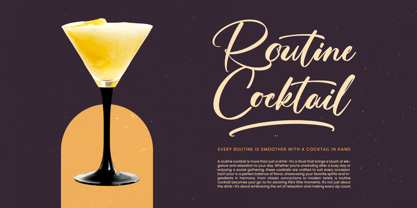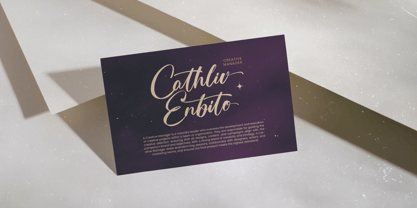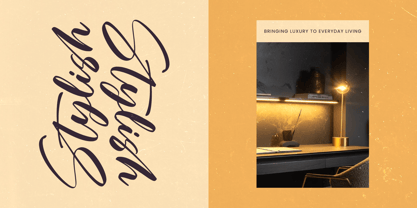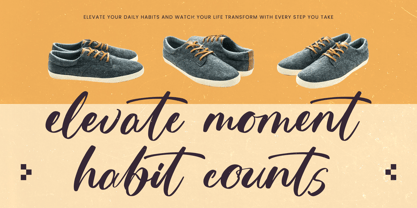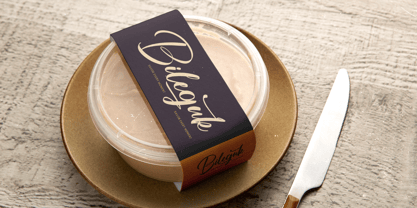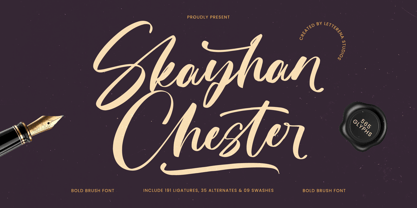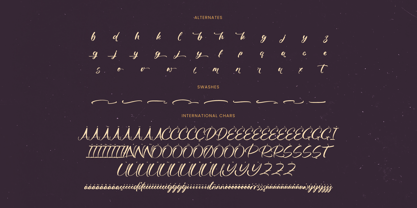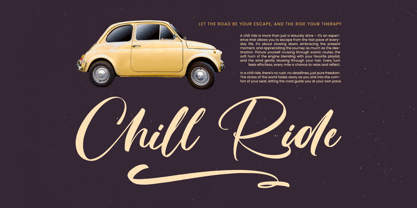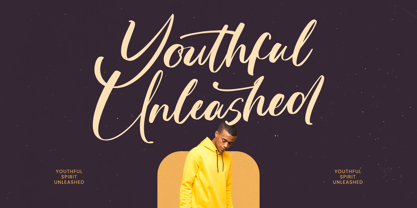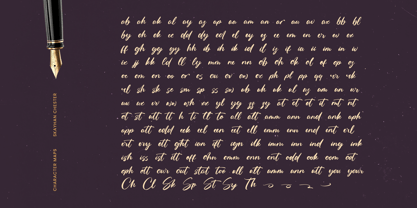
Skayhan Chester
The Skayhan Chester Font Family was designed by Heru Utama Putra and published by Letterena Studios. Skayhan Chester contains 2 styles and family package options.
Skayhan Chester - Bold Brush Font , from Letterena, is a Luxury Script font, suitable for any projects such as: logos, branding projects, homeware designs, product packaging, mugs, quotes, posters, shopping bags, t-shirts, book covers, name card, invitation cards, greeting cards, label, photography, watermark, special events, and all your other luxury and beautiful projects that need a Luxury Script taste.